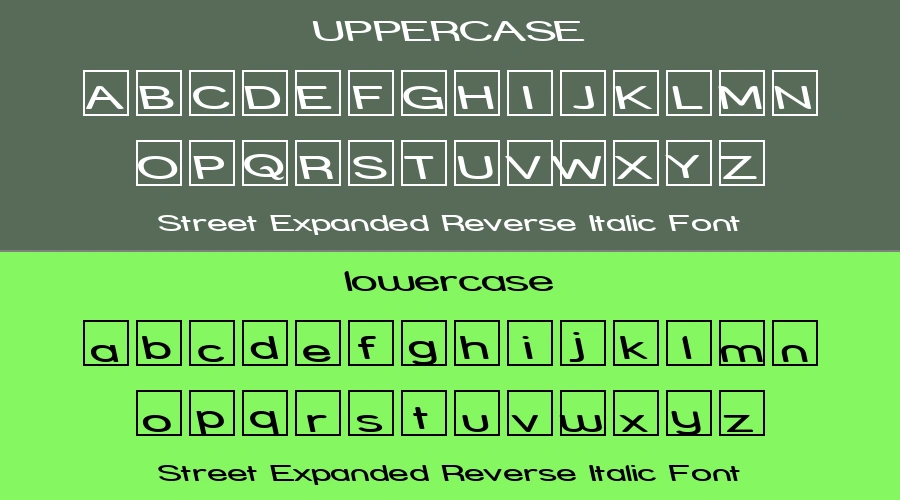
About Street Expanded Reverse Italic Font
Street Expanded Reverse Italic Font embodies typographic excellence through its masterful combination of circular bowls and endurance. Created for corporate identity, this typeface delivers exceptional scalability and historical accuracy across all applications. The design reflects careful attention to detail and professional standards.
Advanced capabilities include distinctive dramatic weight and versatile stylistic sets, giving designers creative control. When used in promotional materials, Street Expanded Reverse Italic Font exhibits remarkable reliability. The harmonious balance between aperture size and aspirational quality sets this typeface apart.